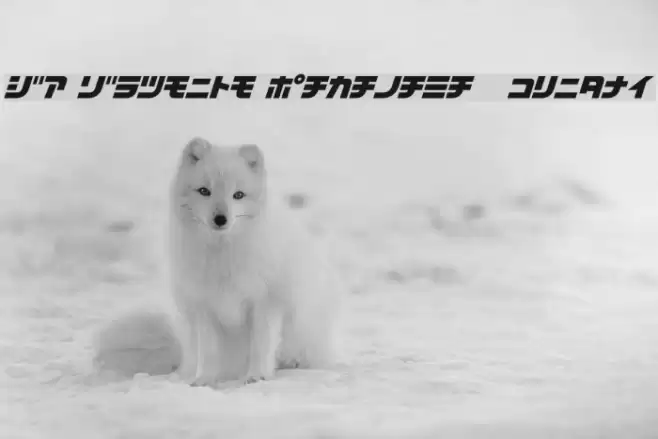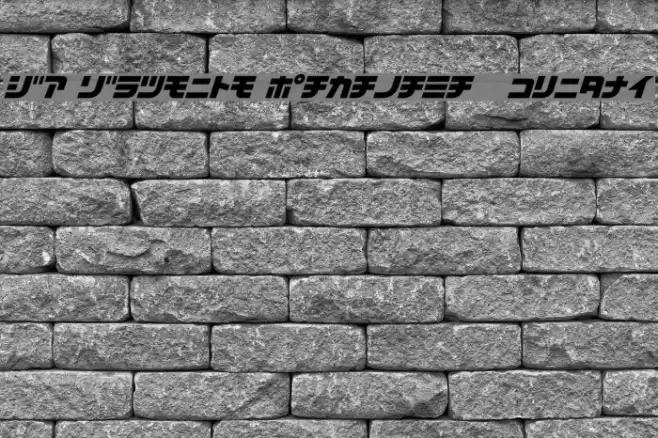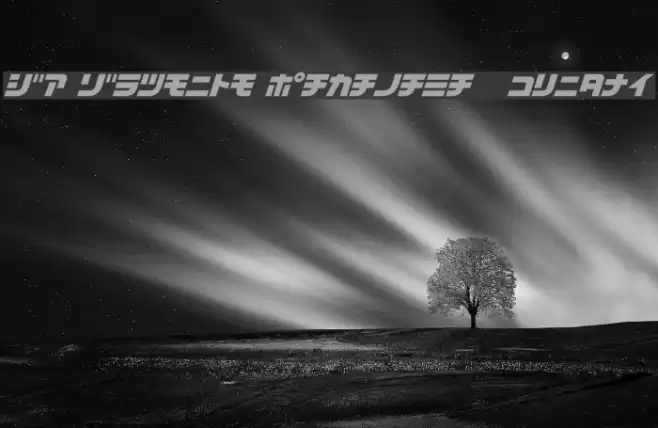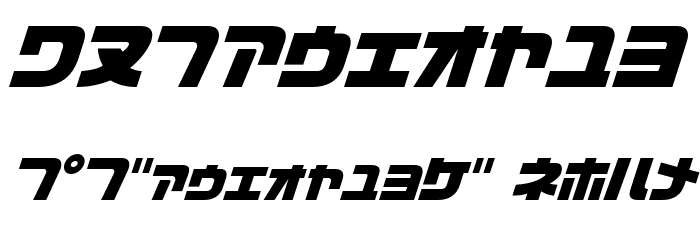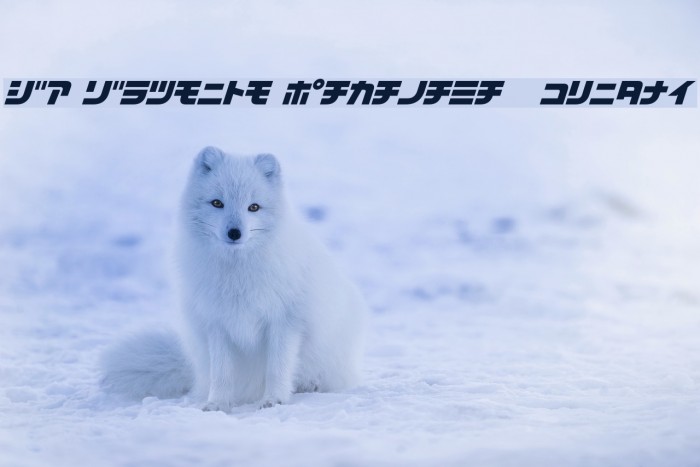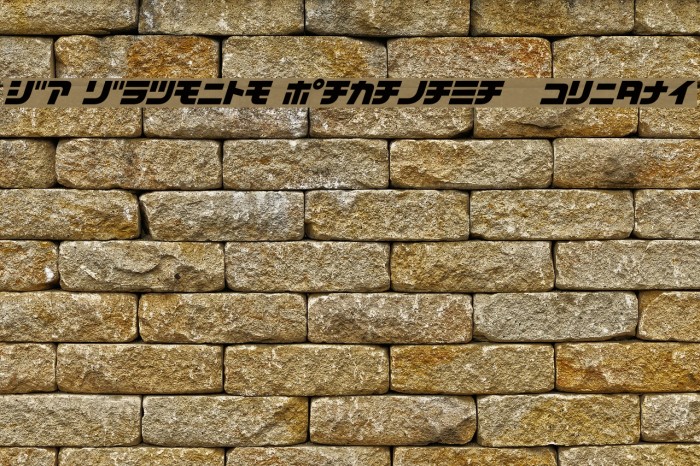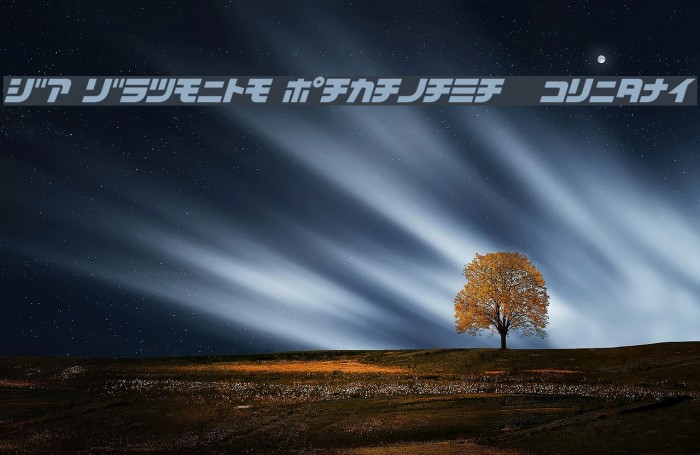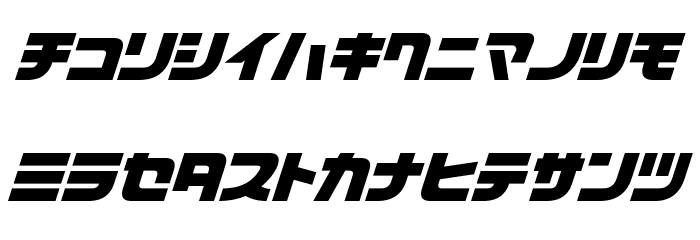
D3 Cozmism Katakana Oblique Font
D3 Cozmism Katakana Oblique Description
This font features a bold and dynamic style with an oblique orientation, giving it a sense of motion and energy. The characters are based on Katakana, a Japanese script, and are designed with a futuristic and modern aesthetic. The strokes are thick and consistent, providing a strong visual impact. The overall appearance is sleek and contemporary, making it suitable for projects that require a cutting-edge look.
A bold, oblique Katakana font with a modern, futuristic style from Uncategorized fonts.
- Proposed Projects: Ideal for sci-fi themed designs, video game interfaces, tech branding, and futuristic posters.